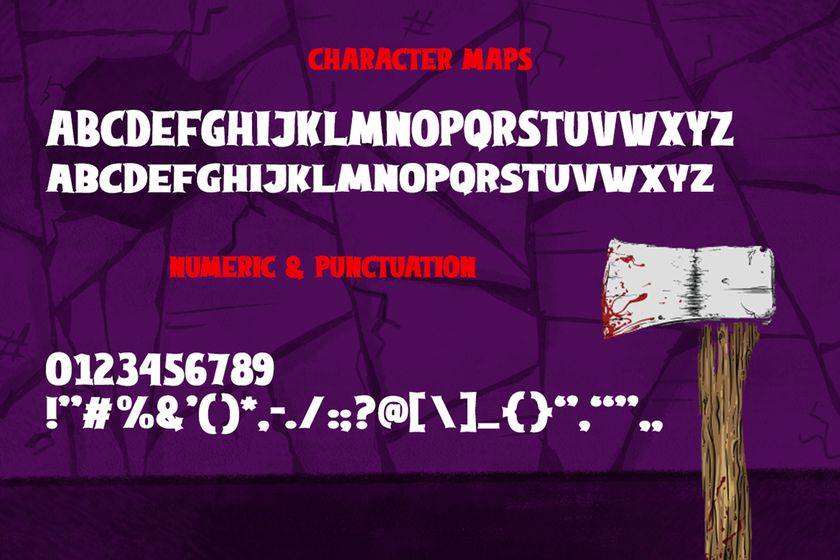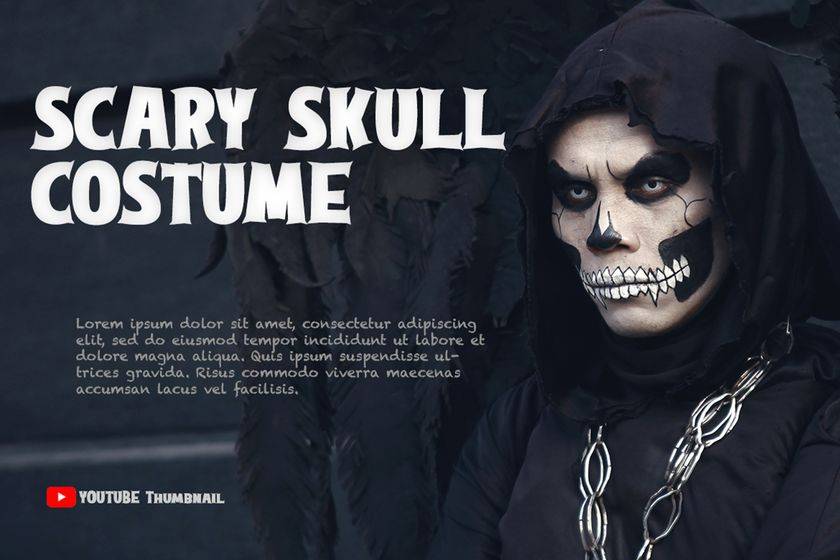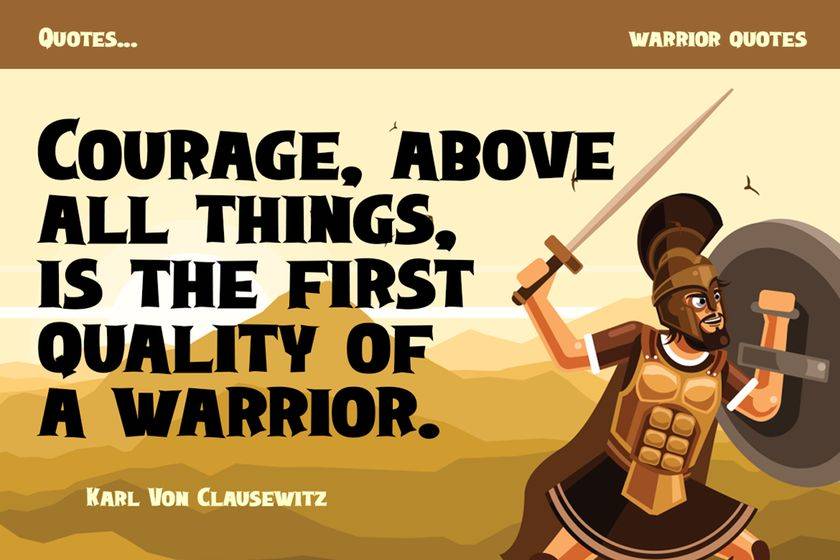
Sharp Axe is a bold, display sans serif font with a strong, rugged personality conveyed through sharp, angled edges and heavy weight. Its dramatic, slightly condensed letterforms and striking geometric cuts give it a fierce, adventurous feel perfect for logos, posters, and branding that want to evoke strength and impact. This font works well in contexts that need bold attention and a sense of daring style.
Sharp Axe Font
About Sharp Axe Font
| Font family | Sharp Axe Font |
| Designer | PINISIART Team |